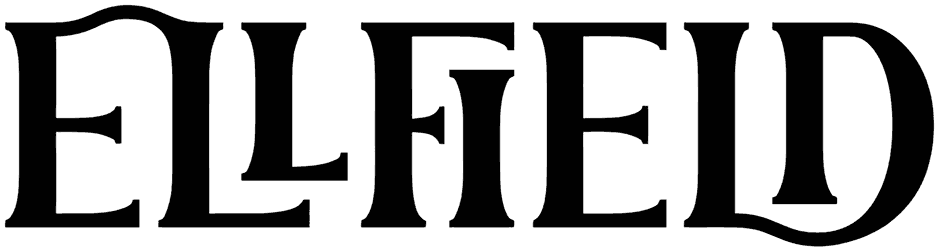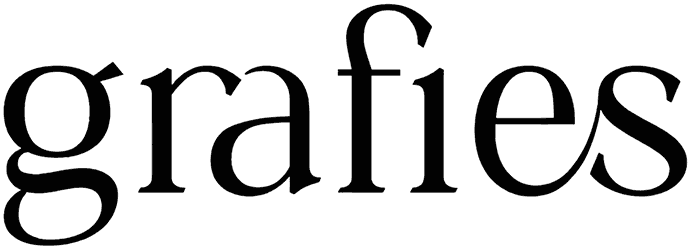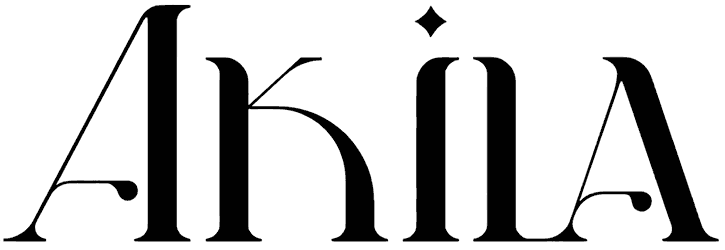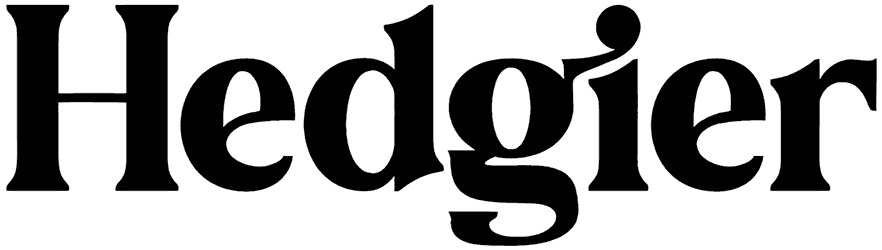
Candlefish Font
Once you choose Candlefish as the modern font you need in your branding project, you’ll be set for glory. Its fancy characters can be pleasing to the eye, taking care of your business identity in the meantime.
Let your logos reflect prestige and perfection through this serif font and see how it can make a splash in your marketing designs. That comes in handy for promoting premium catering services, high-end liquor stores, interior design businesses, and other similar professions.